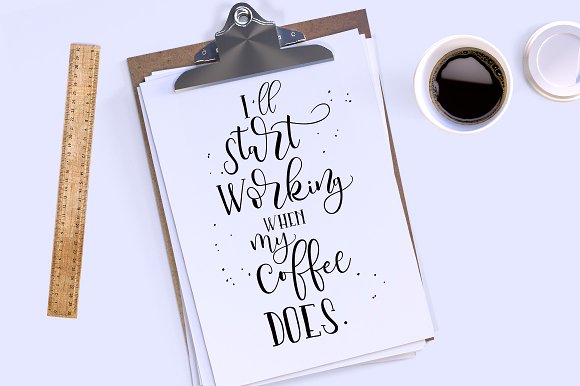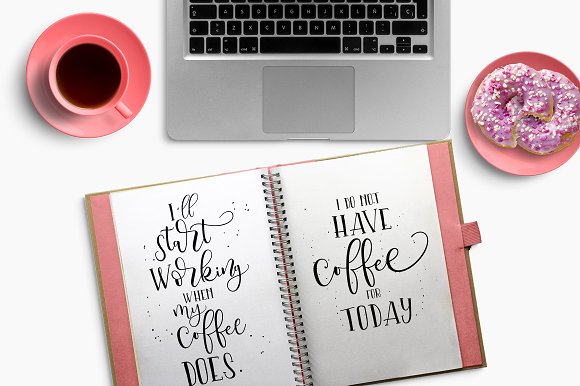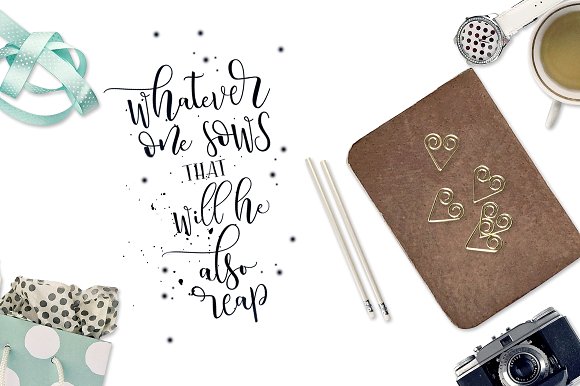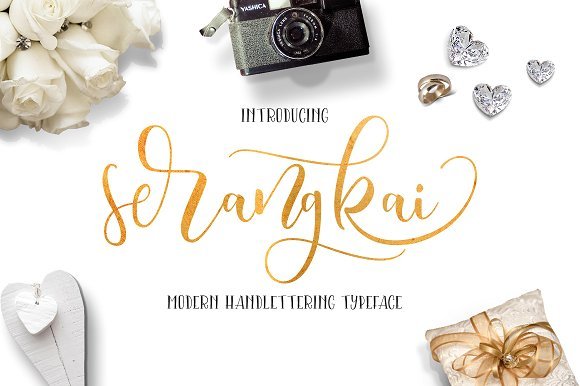
Introduction to Serangkai Font
Serangkai is a simple typeface with beautiful fluid letters.
Key Features of Serangkai Font
Why Choose Serangkai Font?
Serangkai Font offers exceptional quality and versatility, making it a valuable addition to your design toolkit. Whether you’re creating for personal projects or commercial use, Serangkai Font delivers professional results.